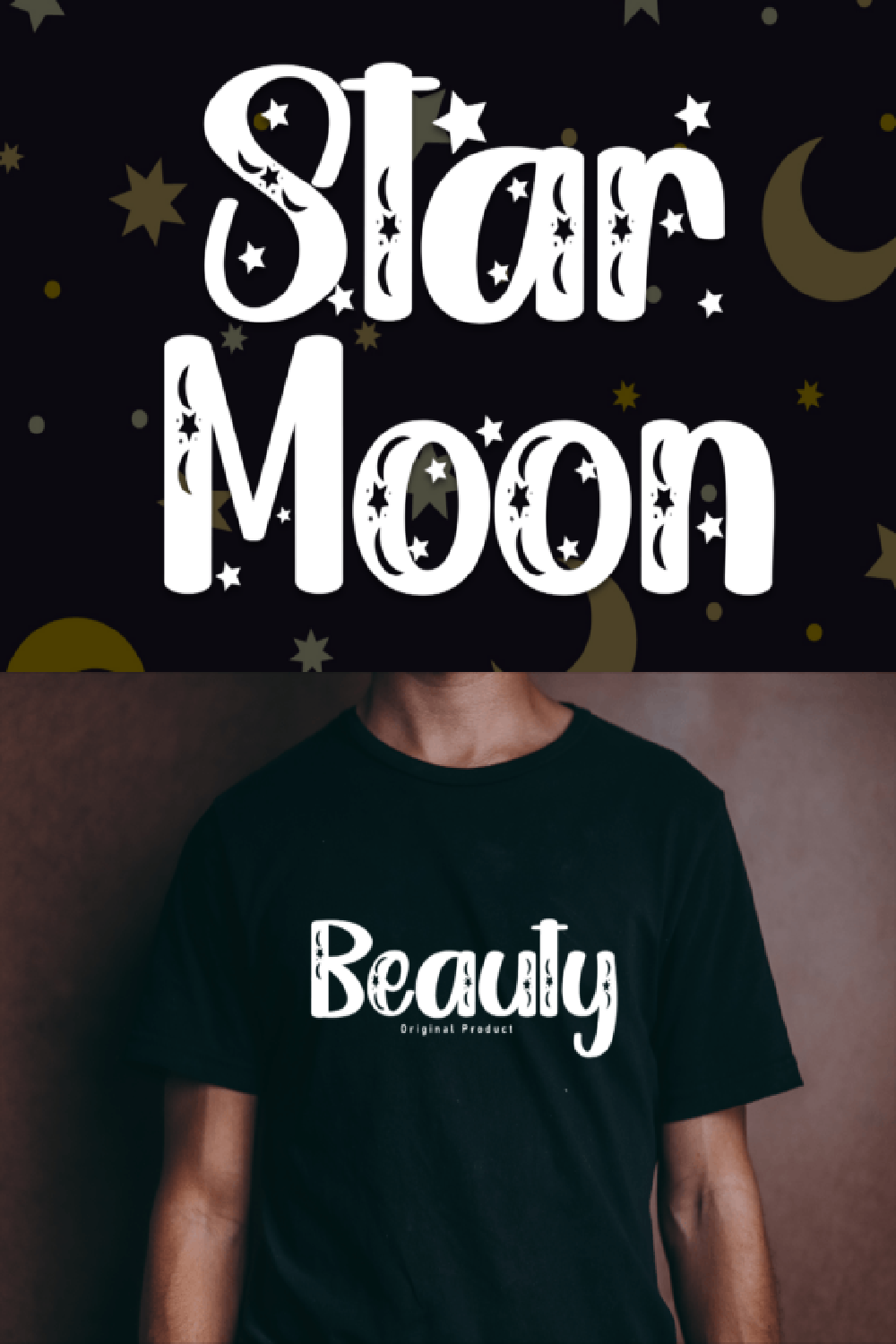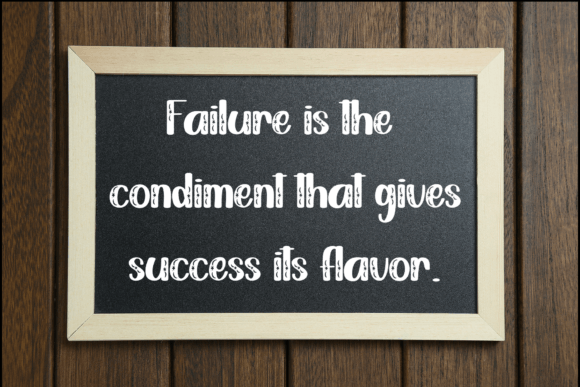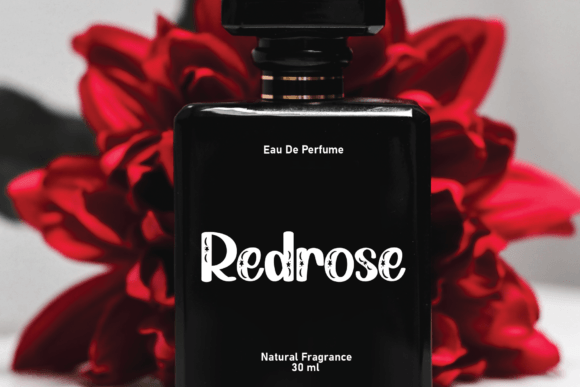
Star Moon Font: A Cute Display Font for Cricut & Craft Projects
About the Star Moon Font
Introducing the Star Moon Font, a beautifully crafted typeface designed to elevate your creative projects. Star Moon is a lovely starry font. It’s a delightful, approachable handwritten display font that radiates charm and friendliness. This ear-catching typeface perfectly captures the essence of joy, making it an impeccable choice for any design that calls for a lighthearted touch. Picture it adding a dose of warmth and intimacy to wedding invitations, radiating joy on cheerful greeting cards, or bringing an element of fun to any design creation!